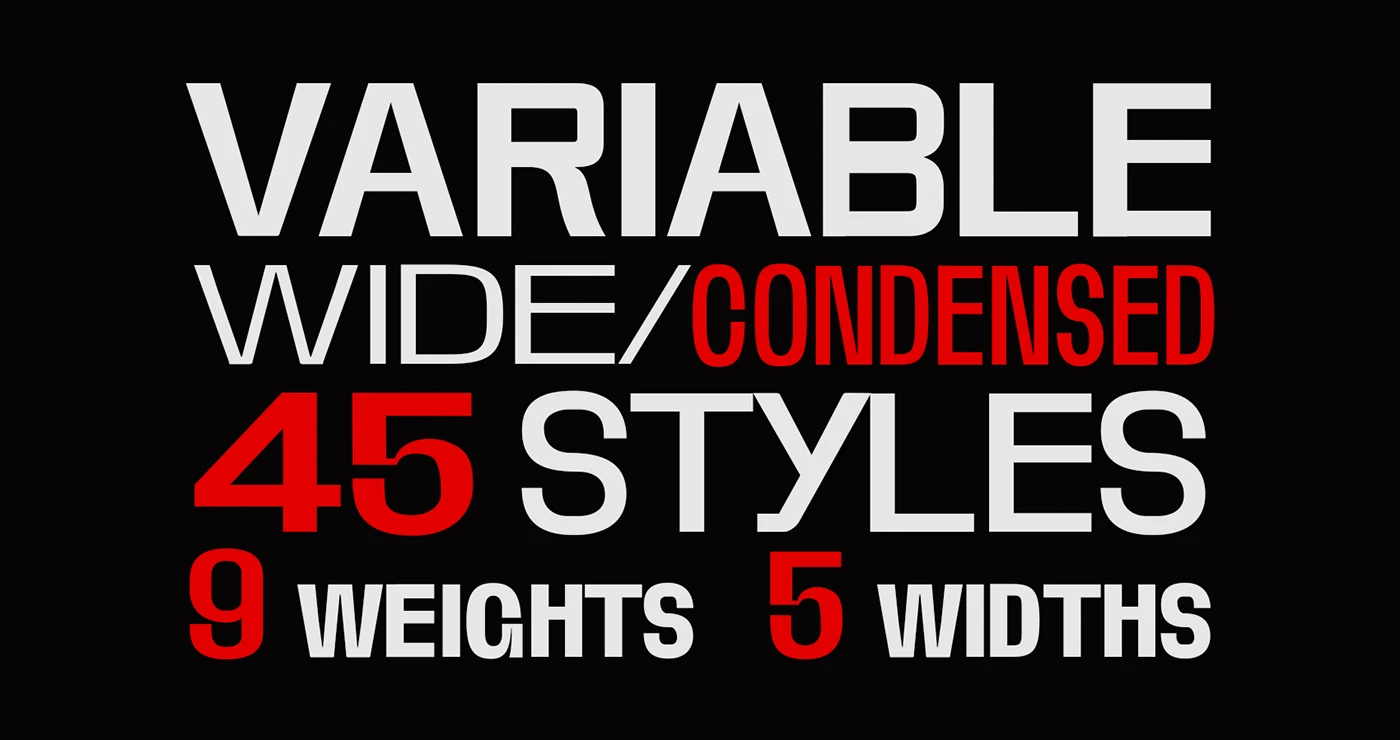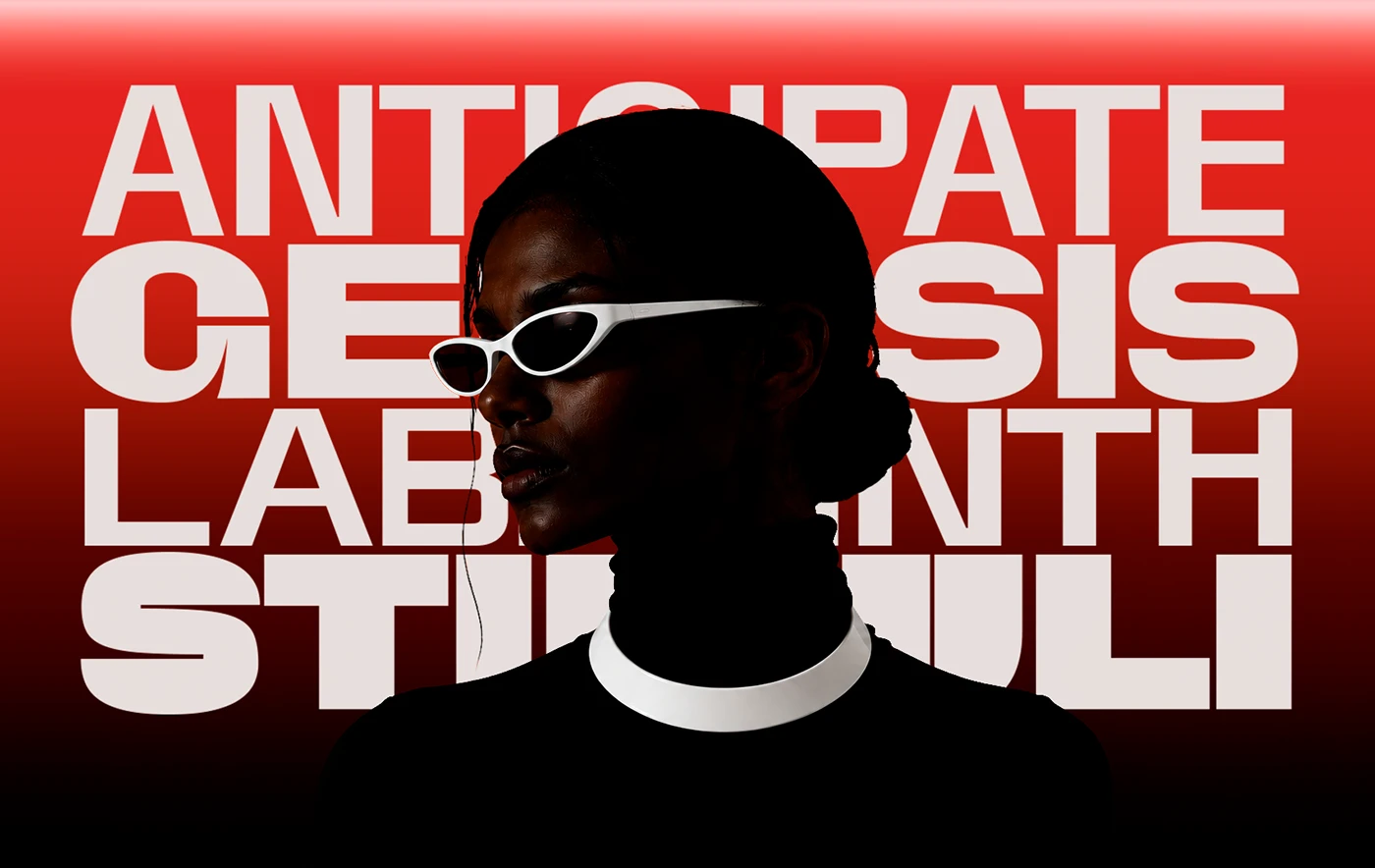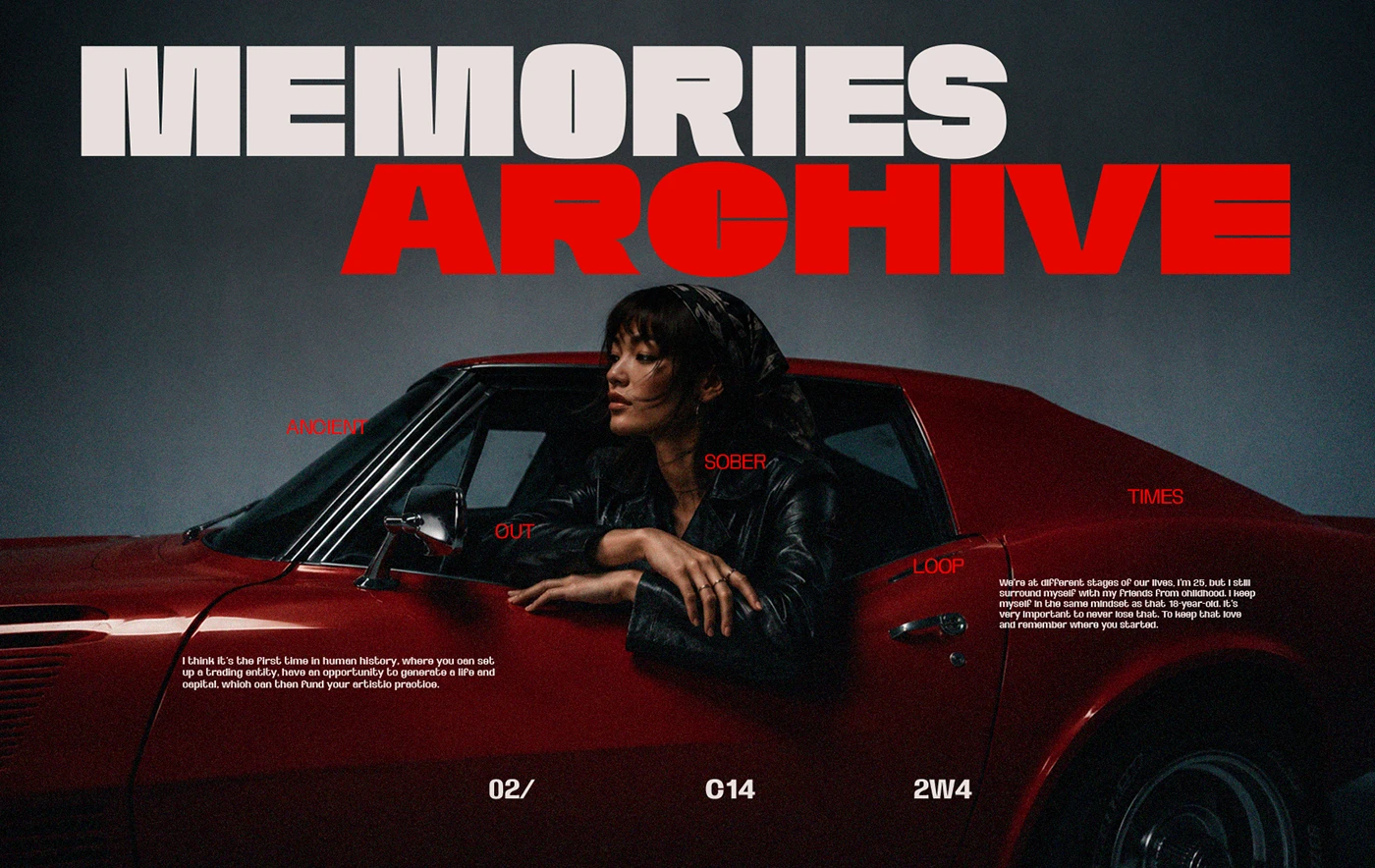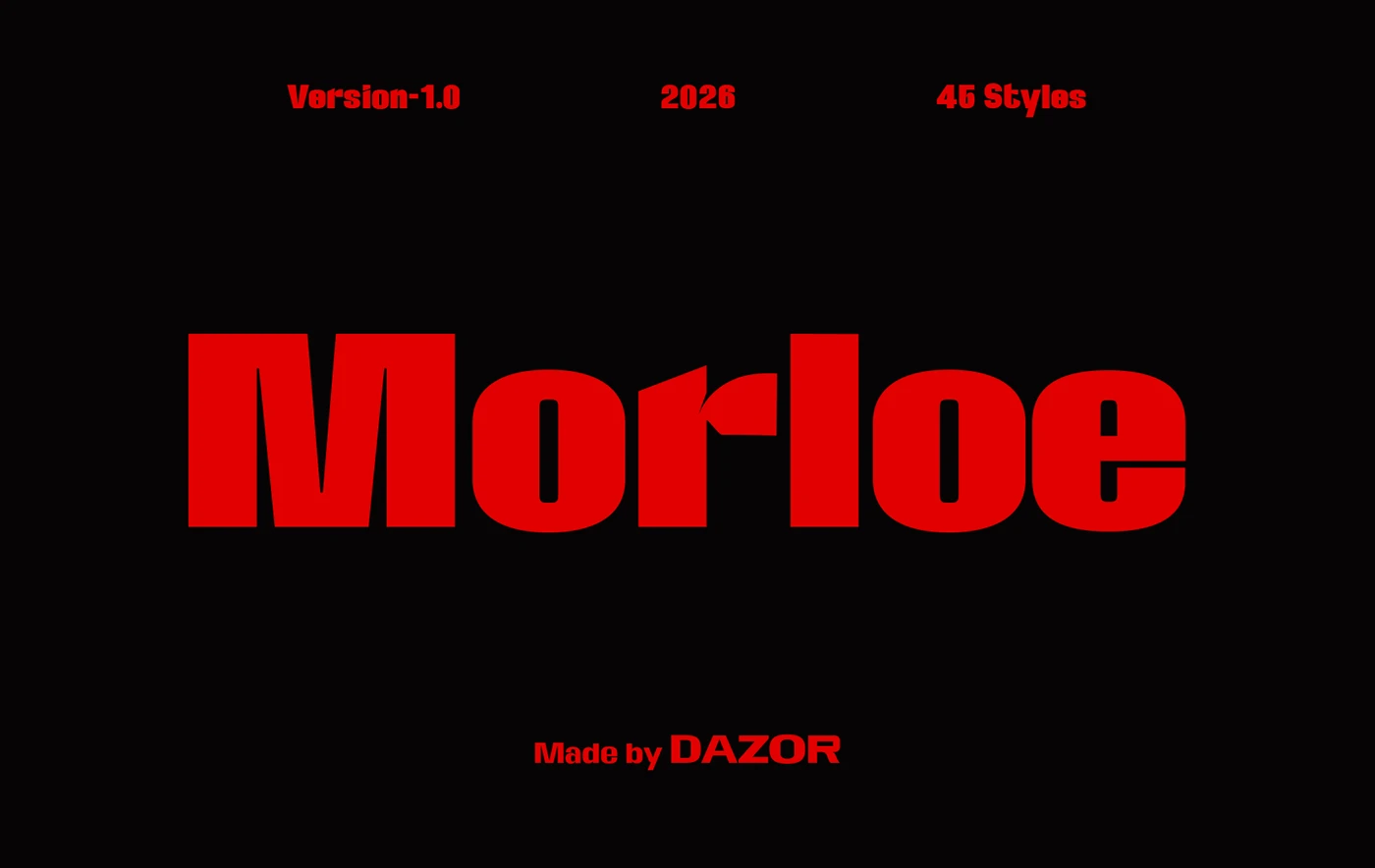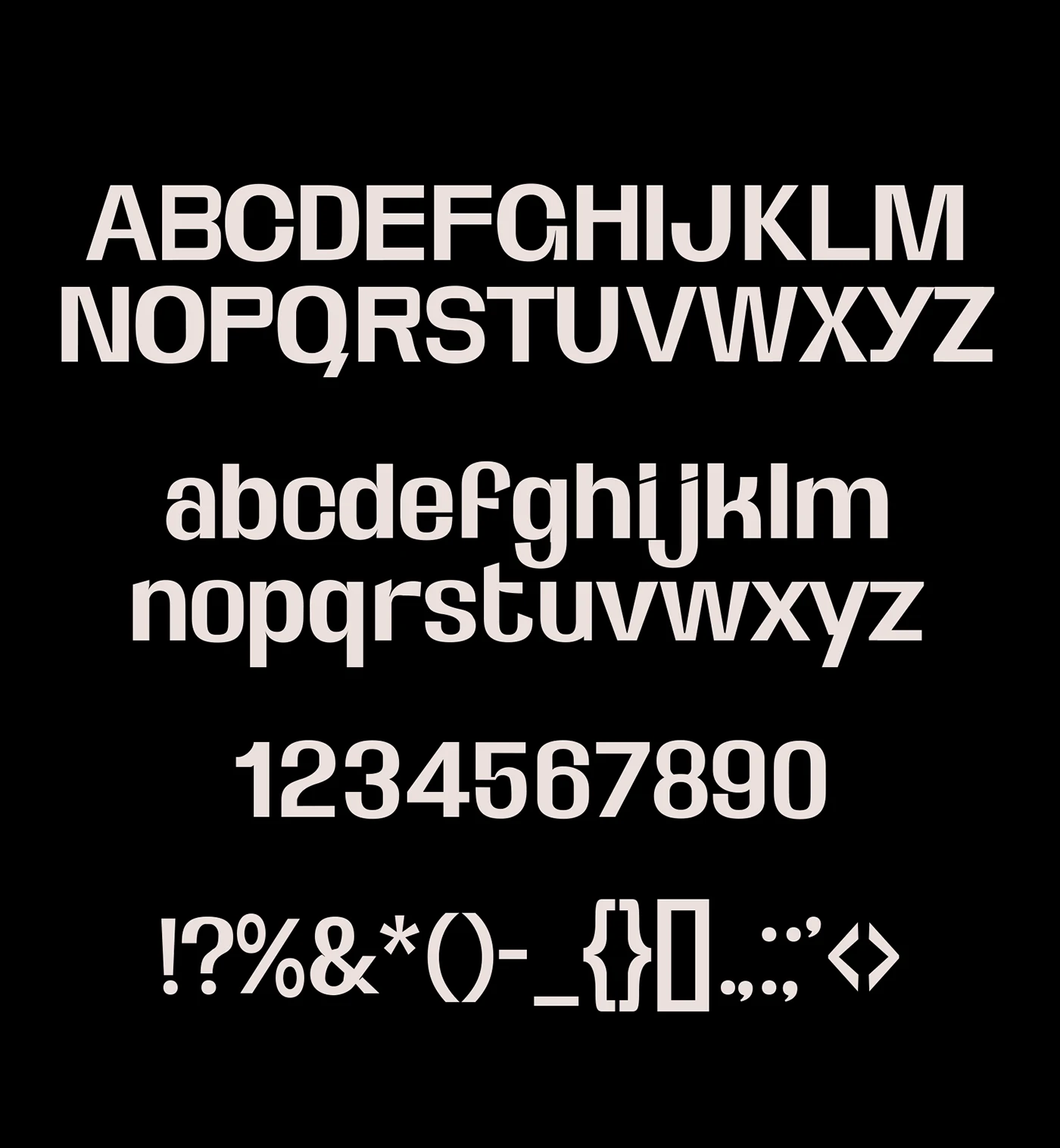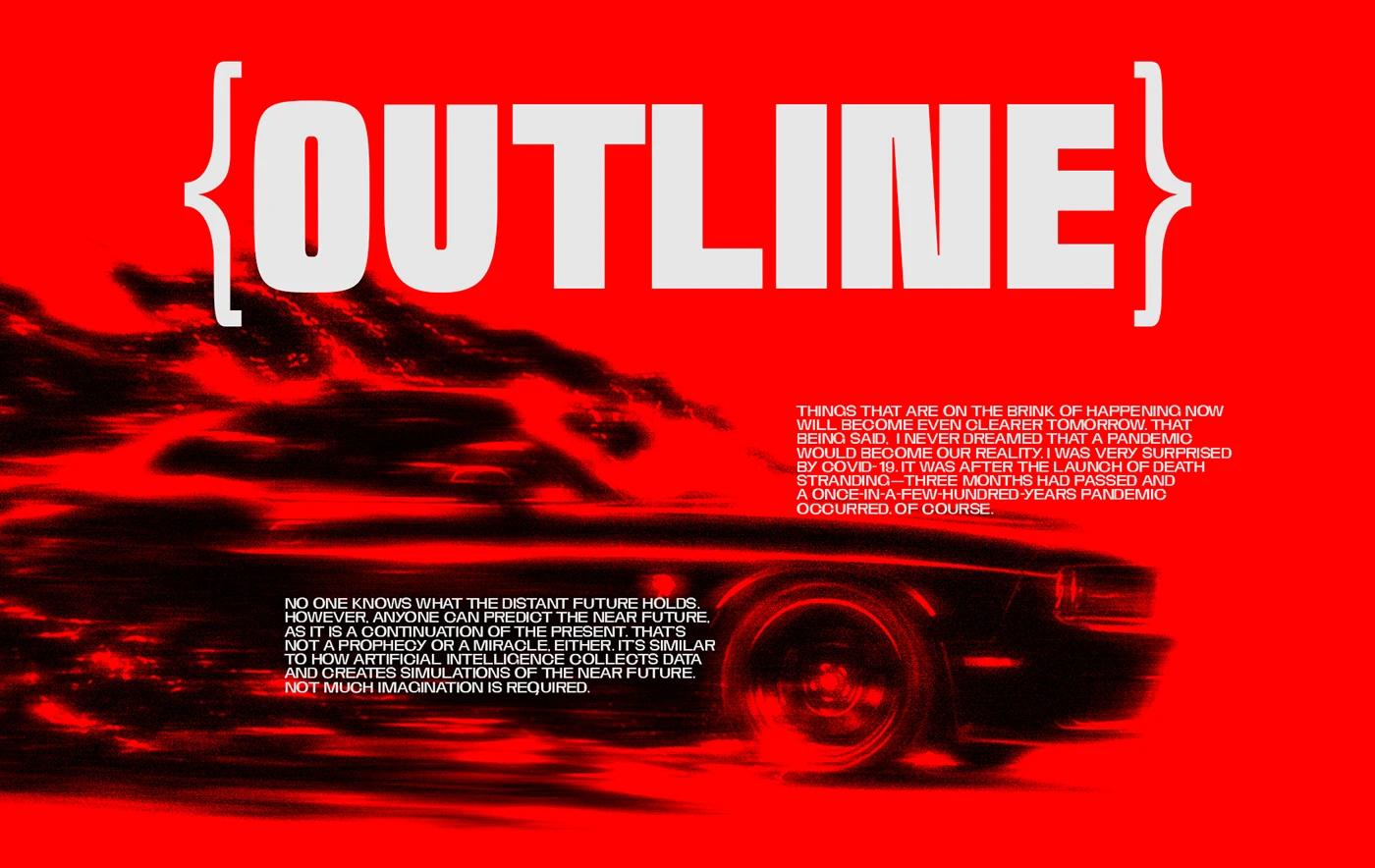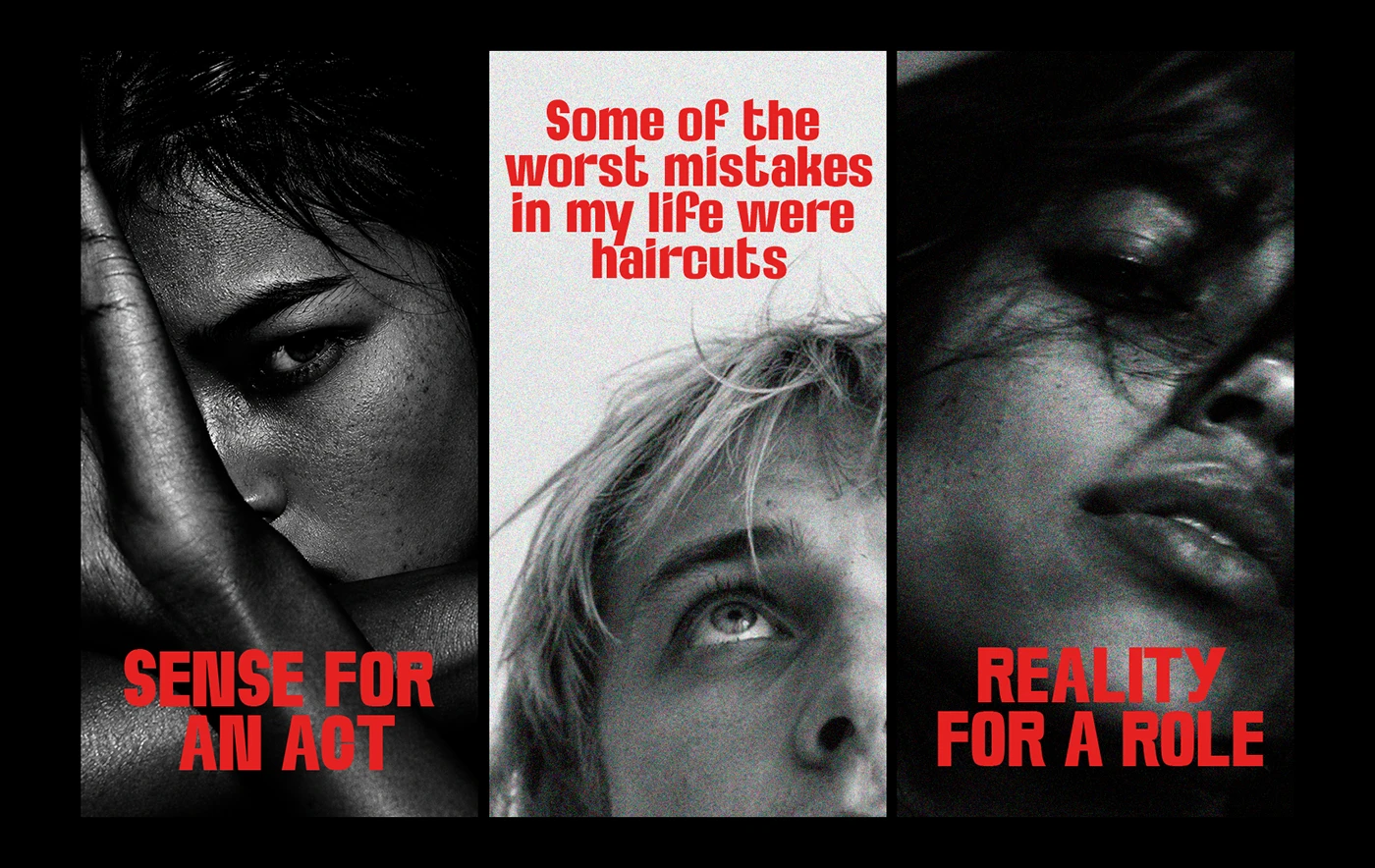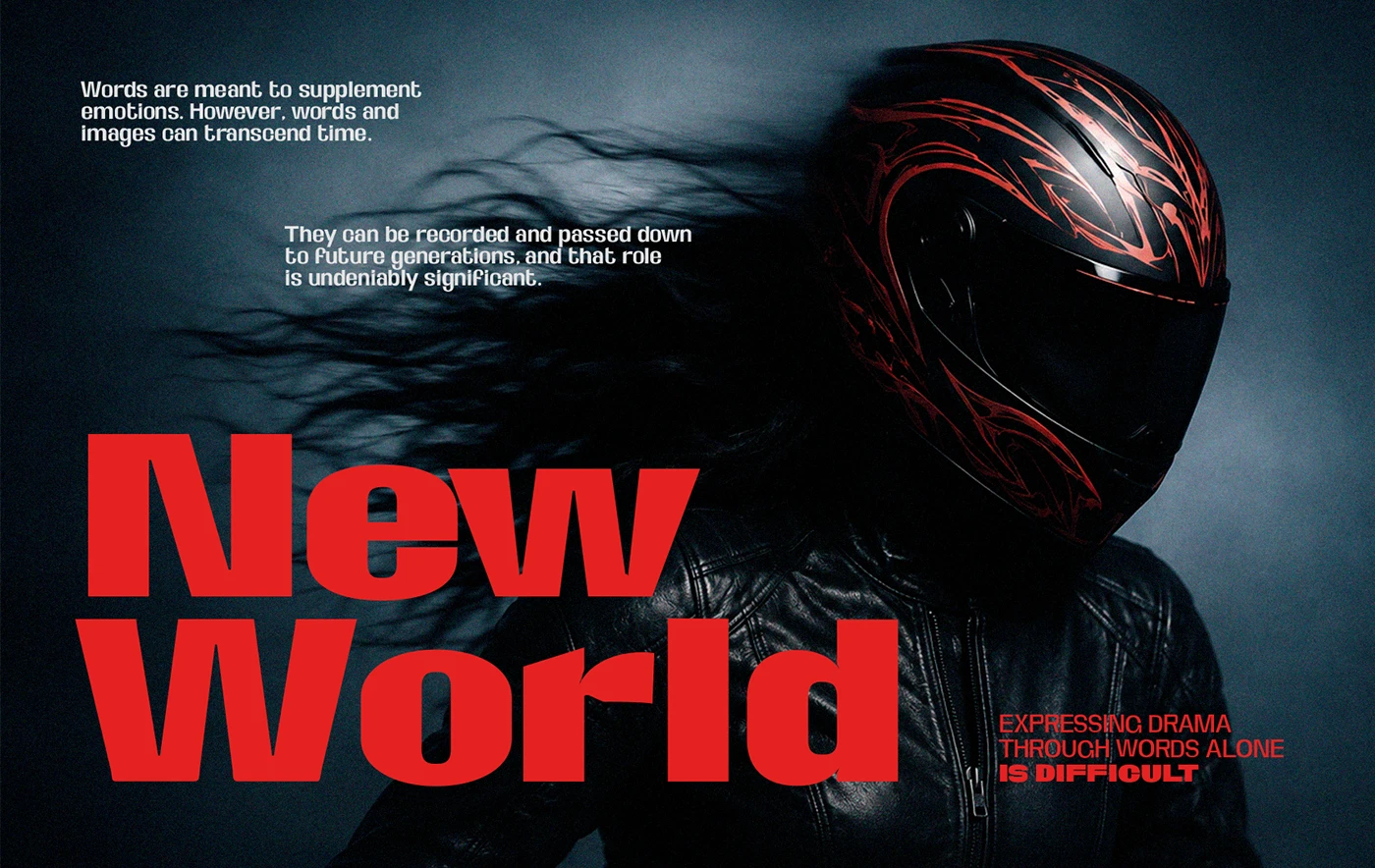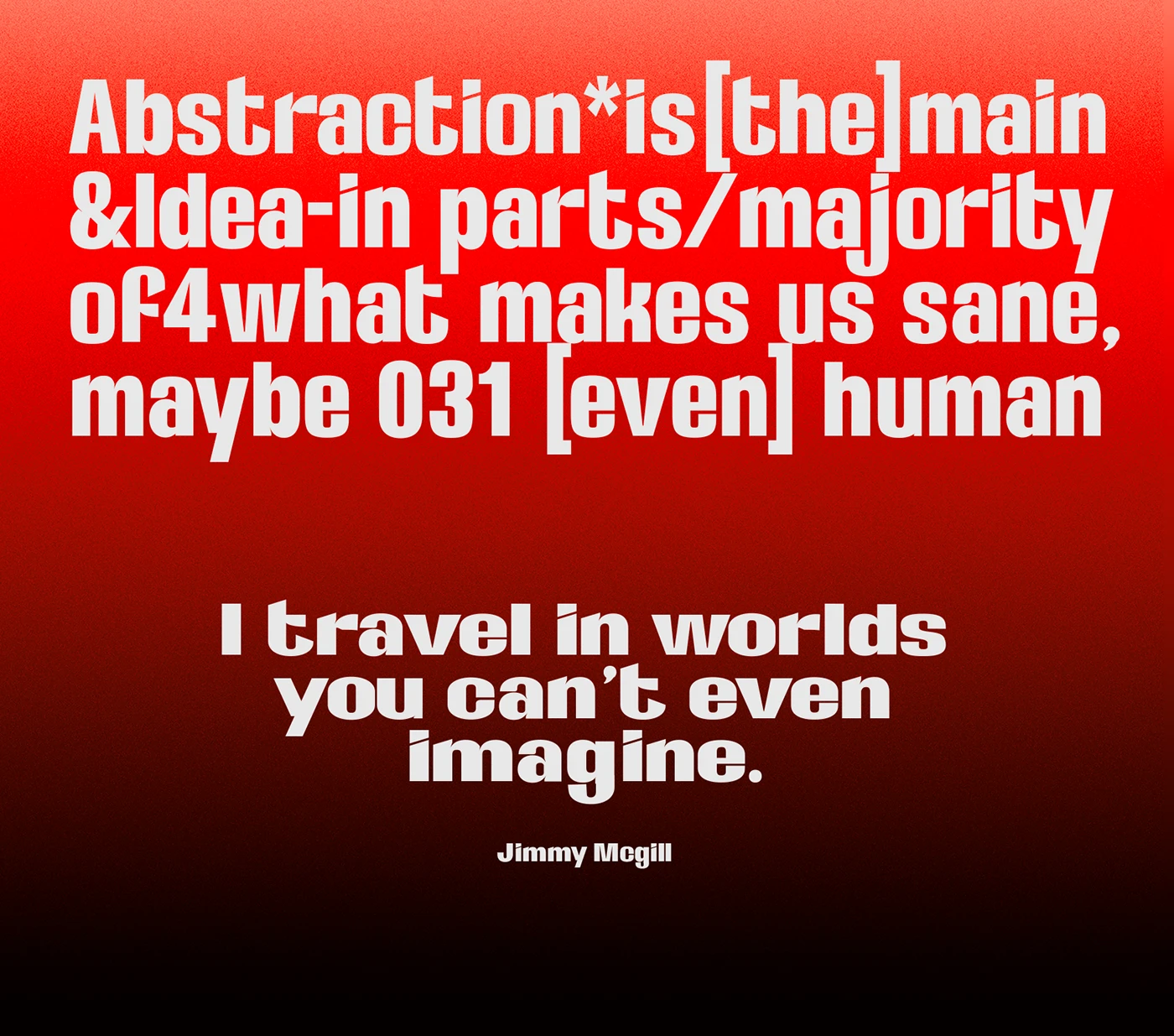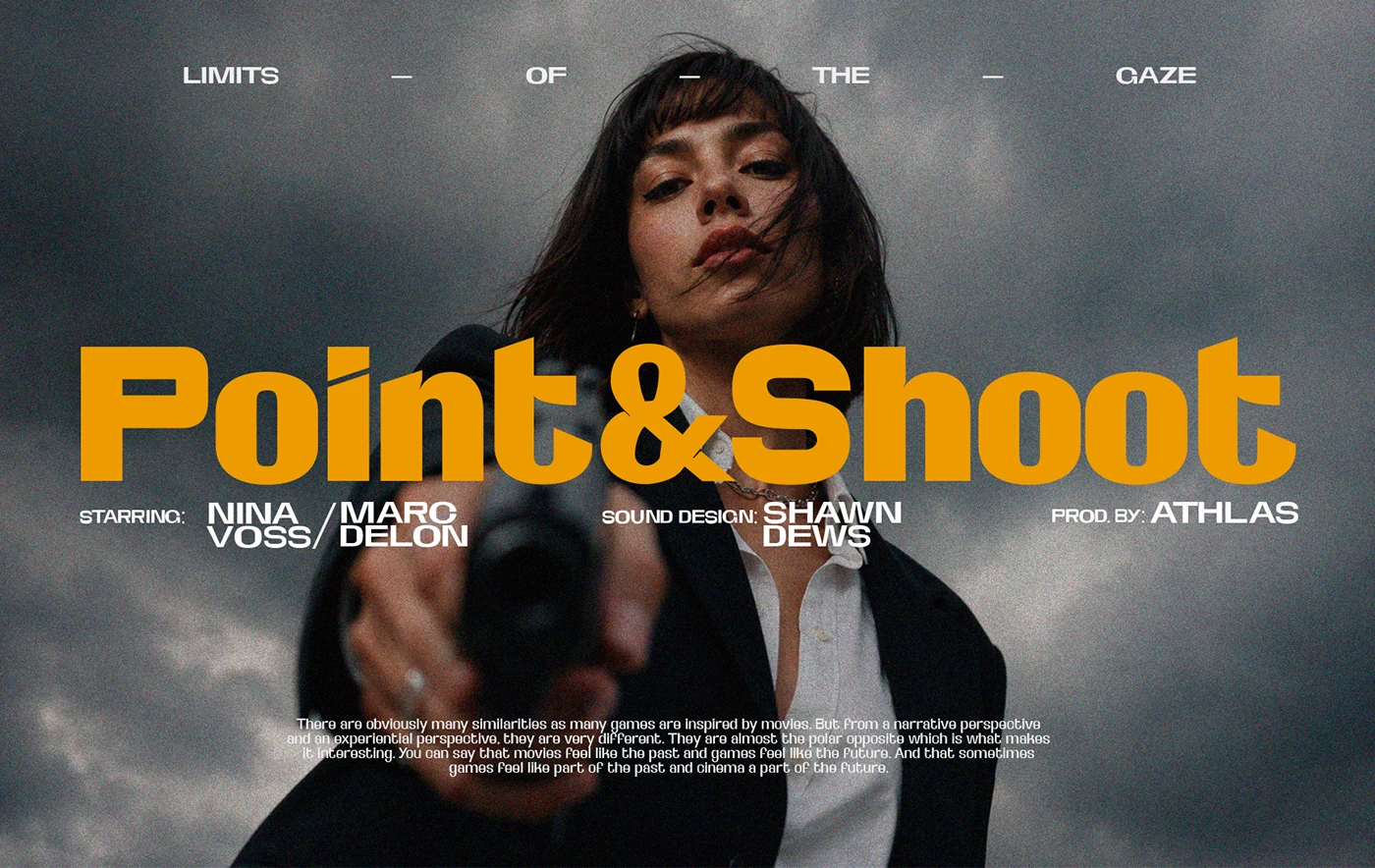
Morloe: Flexible Variable Font for Modern Typography
Morloe is a flexible variable font built for crisp web design and print layouts. It brings strong balance to modern typography.
Designed by Dazor, Morloe gives designers full control over font weight and text style. The letter shapes are clean and sharp. You can tune line space, contrast, and tone with ease. Each glyph keeps its form from thin lines to thick bold cuts. This type family works well for tech blogs, posters, and brand work. The visual layout stays neat on any screen size. Dazor crafted each character to look clear at small sizes and bold in large headlines. The design stays simple yet distinct across all print and web formats. It handles tight grid constraints without losing clarity or style.
Smart Weight Control in Variable Typography
Variable typography helps web sites load fast while looking sharp. Morloe puts smooth weight shifts into one single font file. This saves bandwidth and speeds up page load times. Designers can switch styles without adding extra assets to their code. The character set includes math signs, clean numbers, and extra marks for many languages. It fits grid layouts, mobile apps, and book design easily. With Morloe, digital typography stays light, quick, and easy to read on mobile devices, tablets, and desktop screens. You get clean visual control in every single frame.
Morloe combines solid technical skill with clean visual form. It brings real value to editorial teams, brand designers, and digital studios. The font family makes type hierarchy simple to set up and adjust. You can use it for large display signs, body text, or UI elements. Learn more about the typeface and view full spec sheets directly on Dazor. This variable typography system provides great tools for daily design tasks. It stands out as a reliable resource for type design.